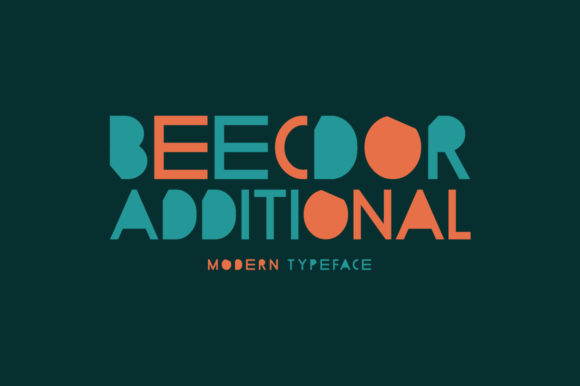
Step into the world of modern typography with Beecdor Additional, a font crafted to ignite your creative spirit. Every letter is a stroke of brilliance, a visual masterpiece waiting to be unleashed upon your designs. Beecdor Additional is not just a font; it's an artistic expression that breathes life into your words, transforming them into mesmerizing visual symphonies.
Unleash the Potential of Beecdor Additional:
- Ignite Creativity: Beecdor Additional is more than a font; it's a catalyst for creativity, a spark that ignites your imagination and fuels your artistic vision. Let the flowing curves and sharp edges guide your designs toward new horizons of visual expression.
- Make a Statement: In a world saturated with bland typography, Beecdor Additional stands out as a bold statement, a defiant declaration of your unique style. Its distinctive letterforms command attention, leaving an indelible mark on your audience's minds.
- Timeless Elegance: Beecdor Additional transcends fleeting trends, embodying a timeless elegance that resonates across generations. Its classic charm blends seamlessly with contemporary aesthetics, ensuring your designs remain captivating for years to come.
- Versatility personified: With its chameleon-like adaptability, Beecdor Additional effortlessly adapts to a myriad of design applications. From elegant wedding invitations to eye-catching posters, from sleek logos to vibrant social media graphics, Beecdor Additional becomes an extension of your creative essence, effortlessly transforming your vision into reality.
- A Font for Every Occasion: Beecdor Additional is the ultimate font chameleon, seamlessly blending into any design landscape. Its versatility extends from the delicate charm of wedding invitations to the bold power of marketing campaigns, from the playful whimsy of children's books to the sophisticated allure of fashion magazines.
- A Designer's Delight: Beecdor Additional is a font designer's dream, a meticulously crafted masterpiece that elevates your typography to new heights. Its smooth curves and sharp edges provide endless possibilities for exploration, inviting you to push the boundaries of your creativity.
- The Perfect Addition to Your Design Arsenal: Beecdor Additional is the missing piece in your design arsenal, the font that completes your creative toolkit. Its unique character adds depth and dimension to your designs, transforming them into captivating visual experiences that leave a lasting impression.